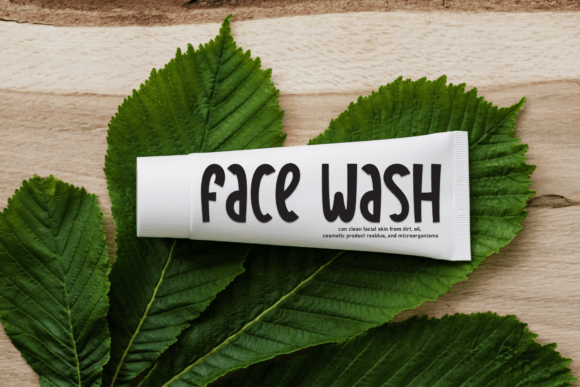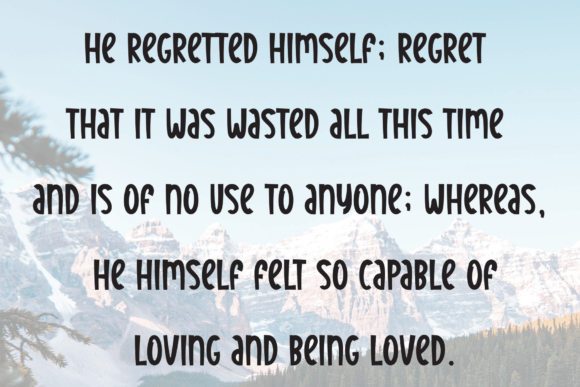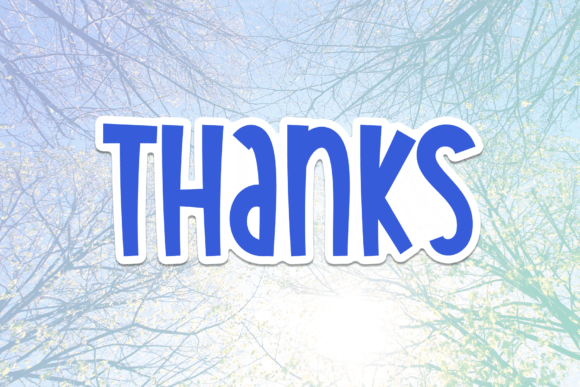
Introduction to Season Change Font
Do you remember that moment when you were brainstorming ideas for your next creative project and suddenly, the perfect font popped into your head? For many designers, finding the right font can be a game-changer, making all the difference between a good design and a great one.
One such font that has captured the hearts of designers is the Season Change Font. Its unique, handwritten style is not only visually appealing but also incredibly versatile, making it a valuable addition to any design resource. Whether you’re working on a project that requires a transparent background or a high-quality logo, the Season Change Font is sure to impress.
Key Features of Season Change Font
- High-quality design resource ideal for creative projects, offering a unique and versatile font style.
- Unique characteristics include a dynamic and seasonal theme, perfect for projects that require a touch of whimsy and creativity.
Honest Review: Season Change Font
I recently stumbled upon the Season Change Font and I must say, it’s a game-changer for my creative projects. The font is designed to evoke the feeling of changing seasons, with a unique blend of warm and cool tones.
One of the things I love about the Season Change Font is its versatility. It works well for a variety of design projects, from invitations to social media graphics. The font is highly customizable and can be easily paired with a transparent background to add a touch of sophistication.
Here are some of the features that make the Season Change Font stand out:
While the Season Change Font is an excellent addition to any designer’s toolkit, there are a few limitations to be aware of:
- Only available in a few font styles, which may limit its use in certain projects
- No comprehensive guide or tutorials to help with customization
- Some users may find the font too whimsical or ornate for their taste
Overall, I’m impressed with the Season Change Font and I think it’s a great resource for designers looking for a unique and high-quality font.
Season Change Font is ideal for various design projects, including blog posts, social media graphics, and marketing materials. Its unique design and transparent background make it perfect for creating eye-catching designs that stand out from the crowd.